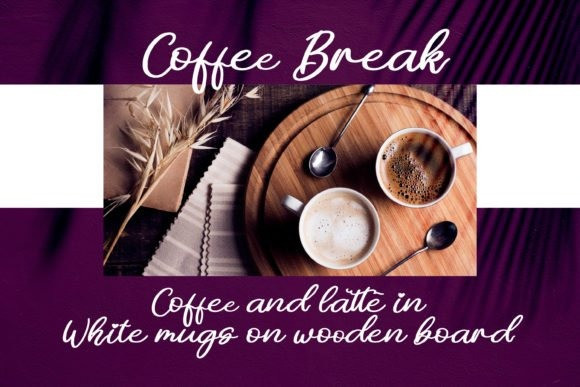
Simple Write Handwriting Font
Simple Write is a tall, cute, and simple sans serif font. Its natural and unique style makes it incredibly fitting to a large pool of designs.